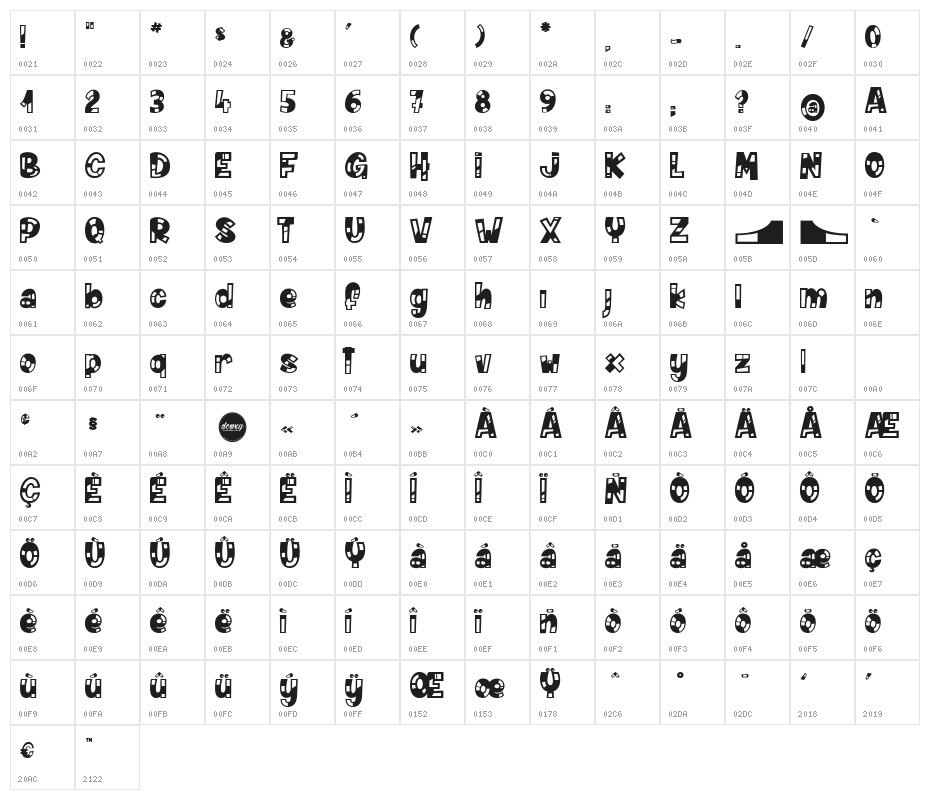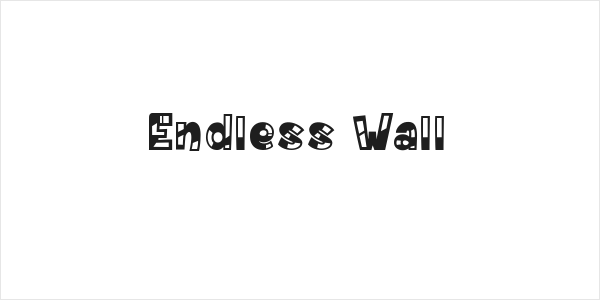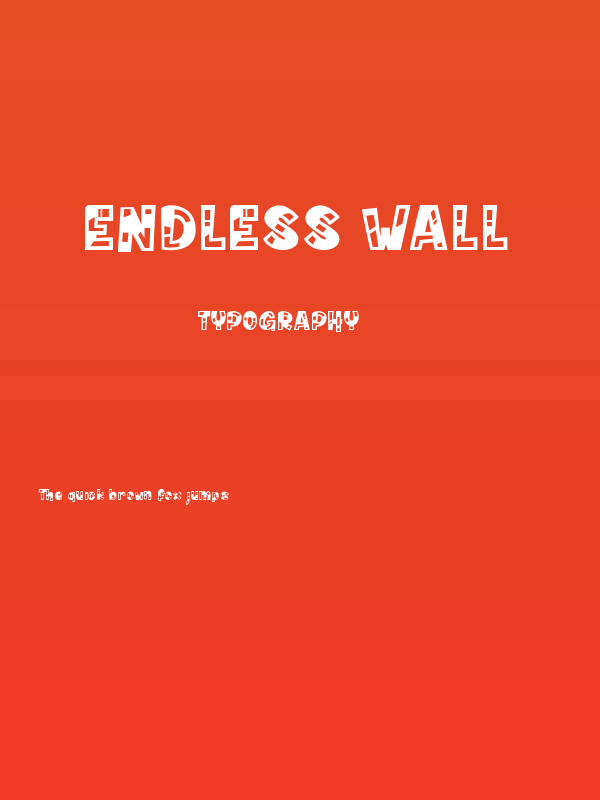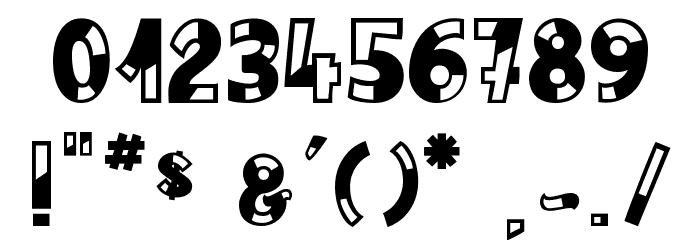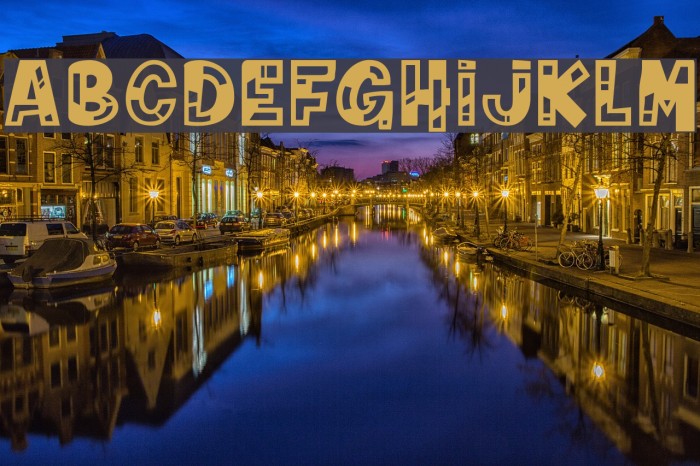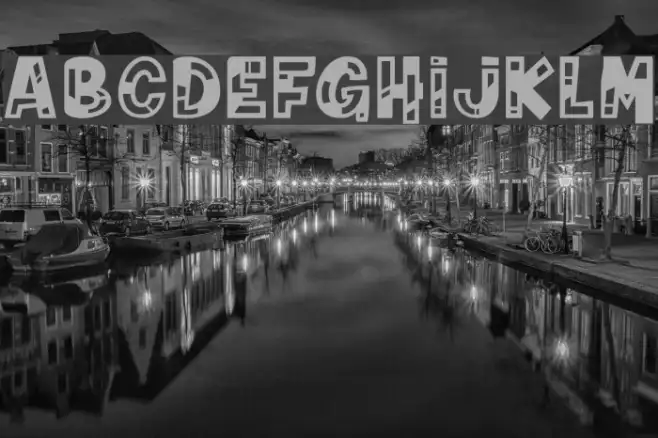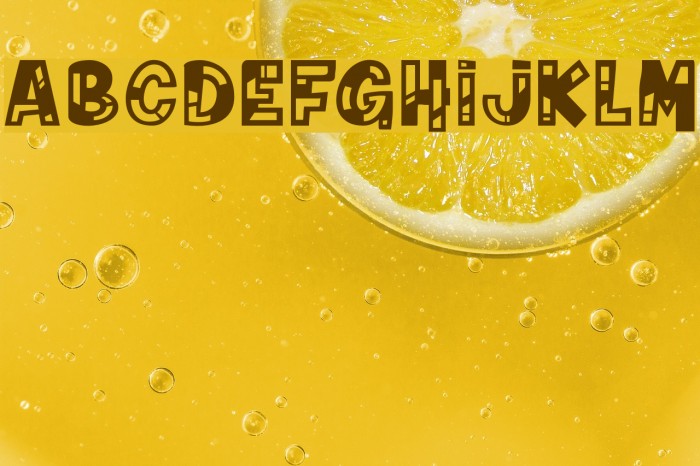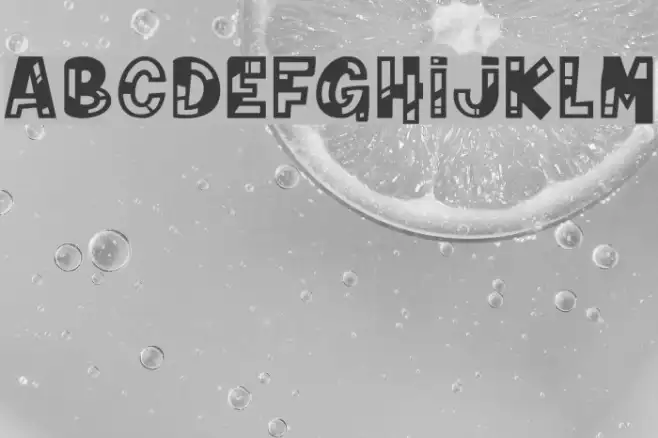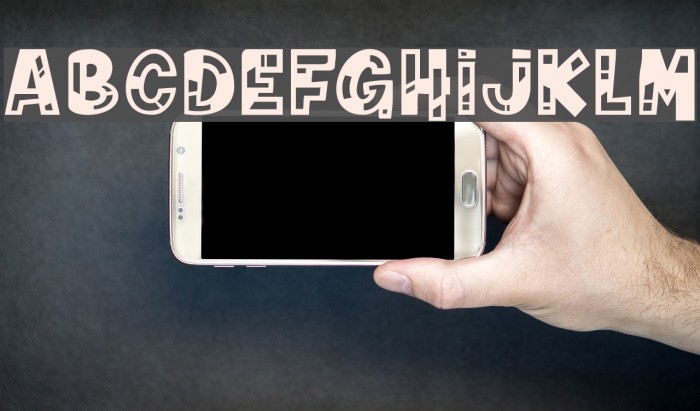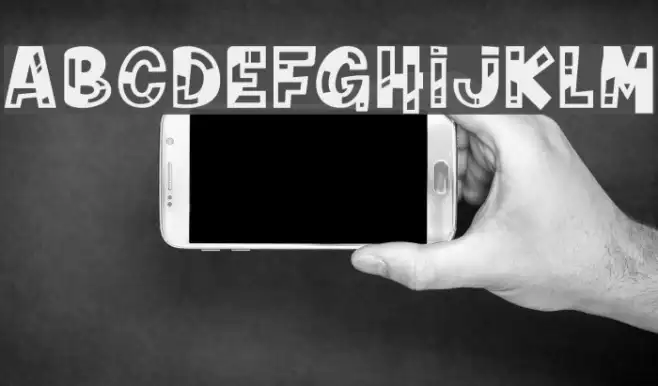
Endless Wall Font
Endless Wall Description
This font features a bold and playful design with a unique, eye-catching style. Each character is filled with a combination of solid and patterned elements, creating a dynamic and energetic appearance. The uppercase and lowercase letters maintain a consistent theme, with bold strokes and a mix of filled and outlined sections. The numbers and special characters follow the same playful aesthetic, making the font suitable for creative and informal projects. Its distinctive style makes it stand out, perfect for grabbing attention and adding a fun element to any design.
| Overall Style | Playful, Energetic, Modern |
| Proposed Projects | Ideal for children's books, playful branding, posters, and creative advertising. |